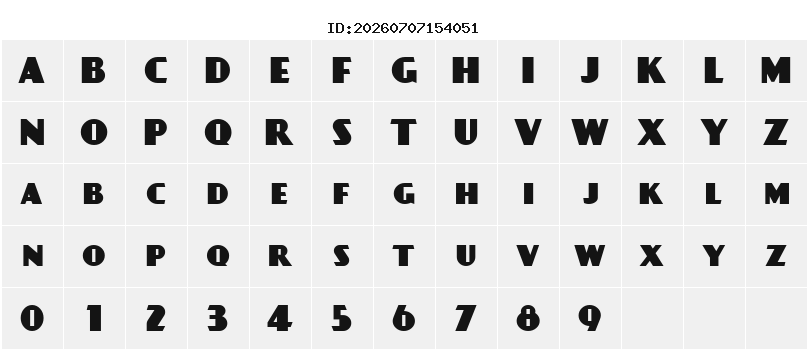
• Font Name: DayPosterBlack
• Designer: Nick Curtis
• Manufacturer: Nick's Fonts
About DayPosterBlack.ttf
DayPosterBlack.ttf is a modern, elegant sans-serif font designed for ultimate readability and visual harmony. Perfect for branding, headlines, web design, and print materials.